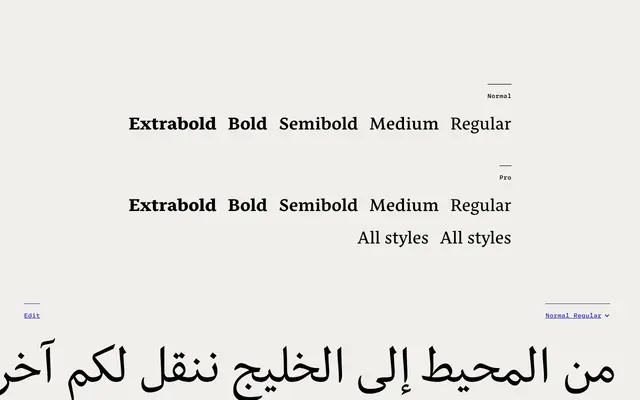
Nassim Arabic
A contemporary Arabic text typeface by Titus Nemeth, designed for multilingual setting across editorial, news and scholarly publishing in five weights.
Designed by Titus Nemeth and released in 2011, Nassim Arabic pairs a lively Arabic with a well-balanced Latin companion across five weights from Regular to Extrabold. The family comes in two editions: Normal covers editorial fundamentals, while Pro adds extensive ligature sets, swash variants for Arabic-authentic justification, contextual alternates, tooth-height alternation and ranging numerals. Coverage extends to over 35 languages using the Arabic script, and the typeface has won awards from TDC, European Design and ATypI.
Nassim Arabic is classified as a contemporary text serif designed specifically for Arabic script with a matched Latin companion. Its angular, modern forms and structured rhythm place it firmly in the text serif tradition adapted for Arabic typographic conventions.